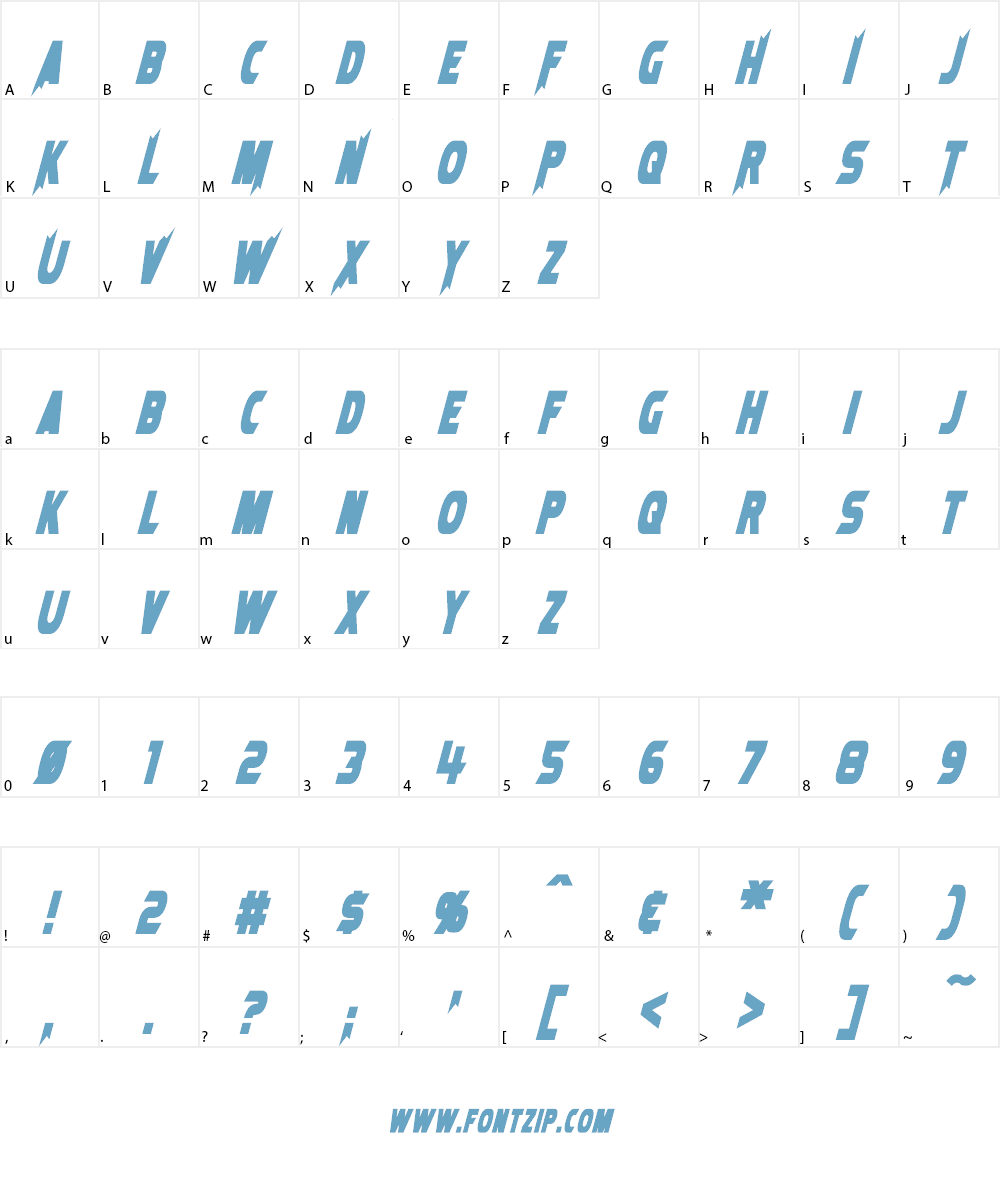
This font is based on the "Laser Cycle", "Laser Rod" part of Hasbro's Generation Two toyline. Includes full alphabet, numerals, extended characters and Euro. Left and right brackets have been replaced with the Autobot and Decepticon insignia, respectively.